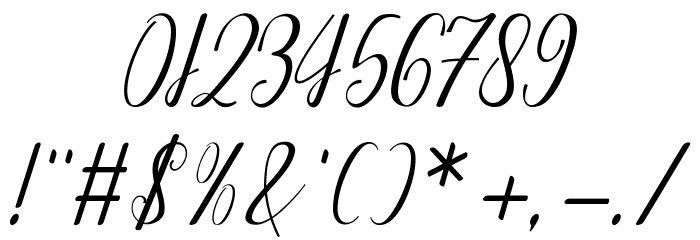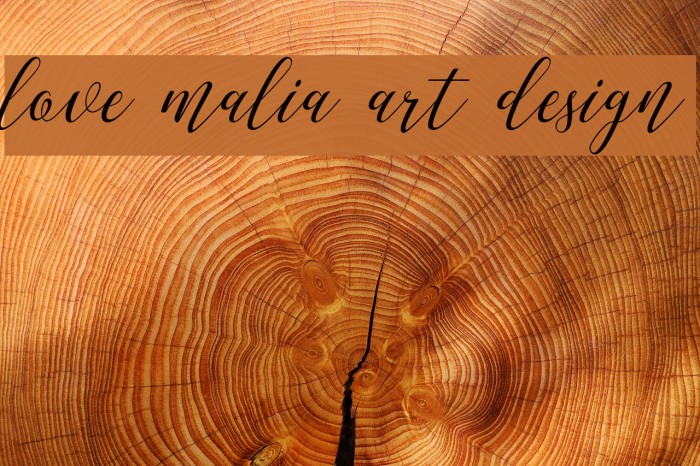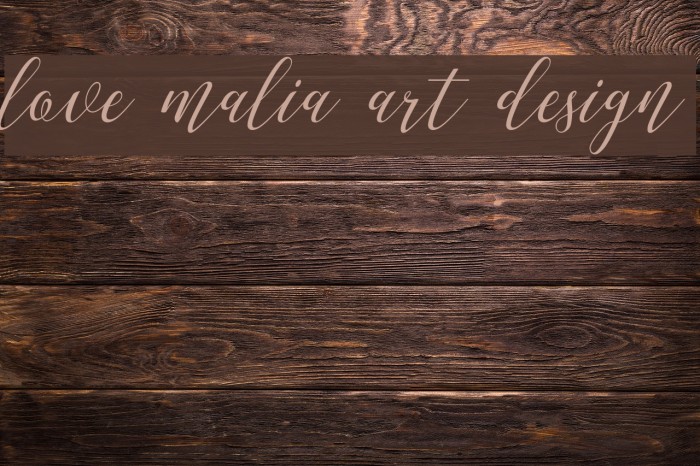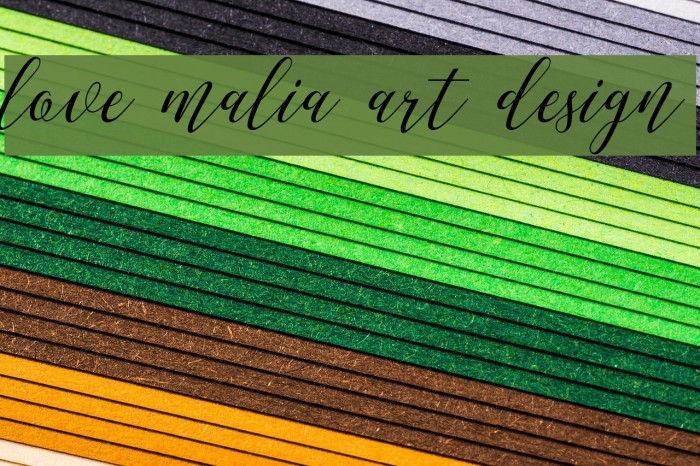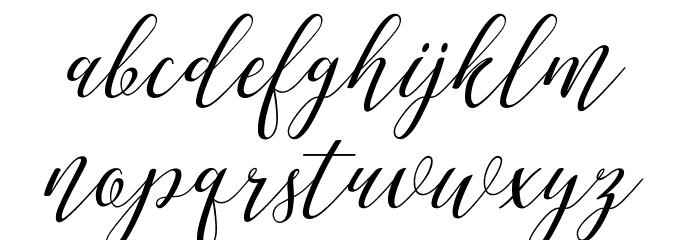
love malia art design Font
This elegant script font features a flowing, cursive style with smooth, sweeping curves and delicate strokes. The uppercase letters are ornate, with intricate loops and flourishes that add a touch of sophistication. The lowercase letters maintain a consistent flow, creating a harmonious balance between each character. Numbers and special characters are designed with the same attention to detail, ensuring a cohesive look throughout. The font's overall appearance is both graceful and stylish, making it ideal for projects that require a touch of elegance and refinement.
A graceful and elegant script font with flowing, cursive strokes.
• Proposed Projects: Ideal for wedding invitations, elegant branding, greeting cards, and luxury packaging.
• Category: Script
• Contrast: Medium
• Overall Style: Elegant
• Use Case: Logos, Invitations, Decorative text